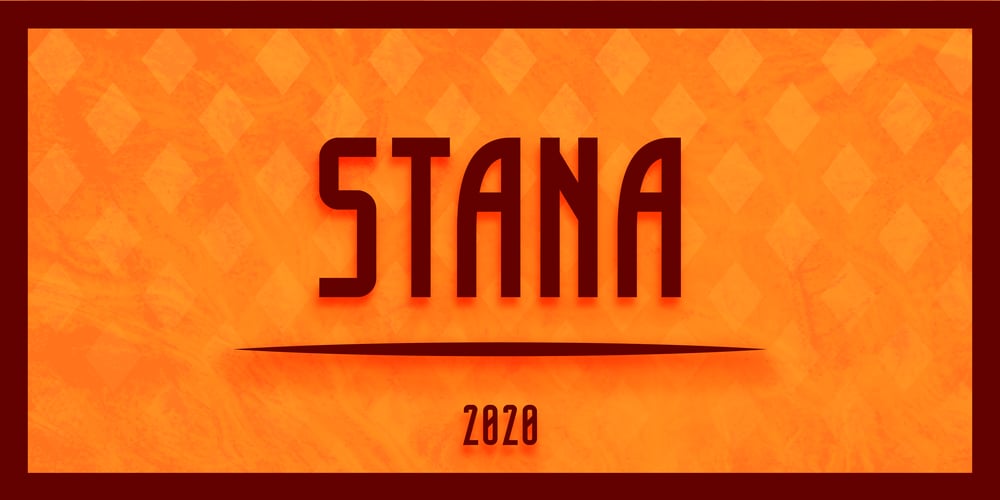
Stana Font Family was designed by Luka Pejic and published by Wirtu. Stana contains 1 styles and family package options. Stana is all caps, clean and tall display font. There are more than 150 glyphs included.